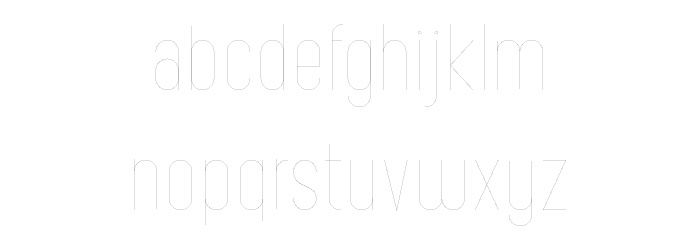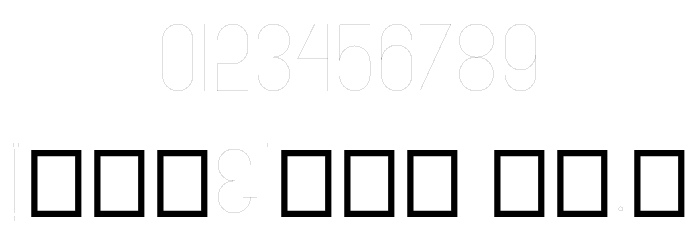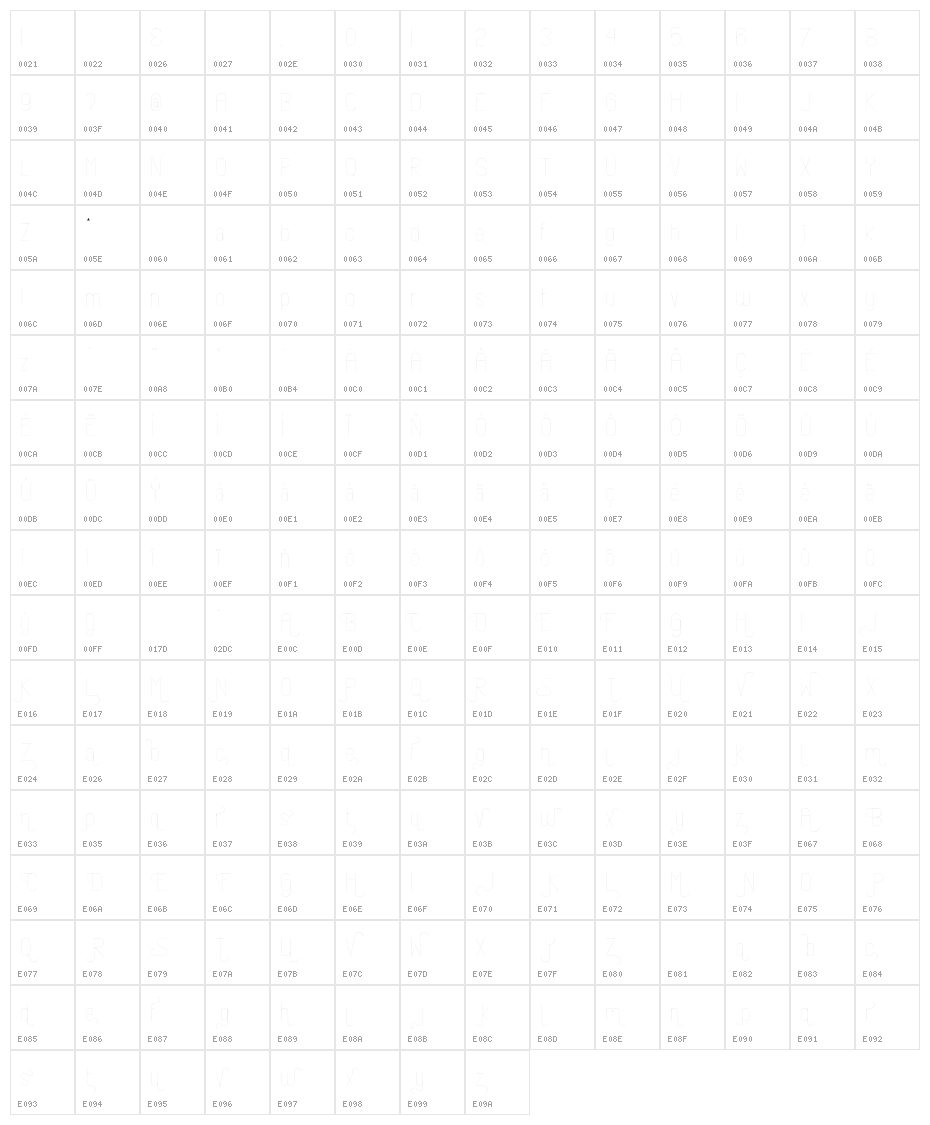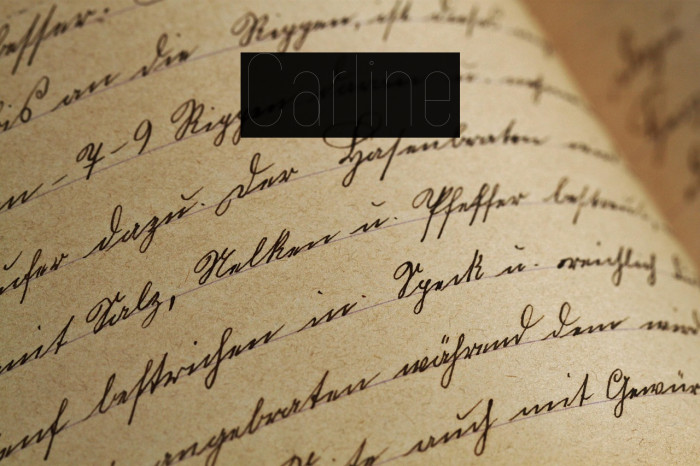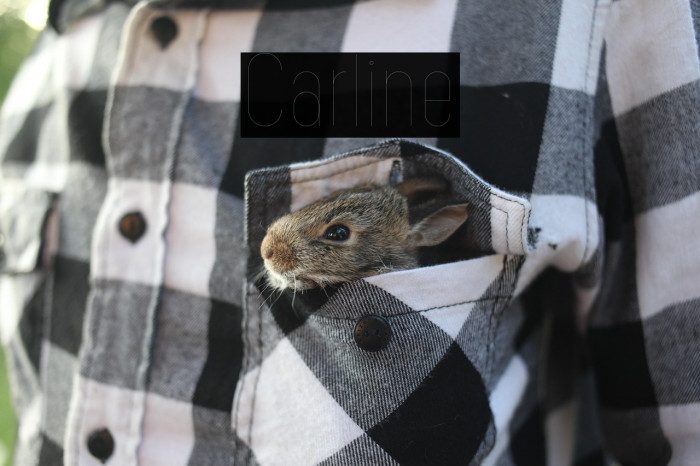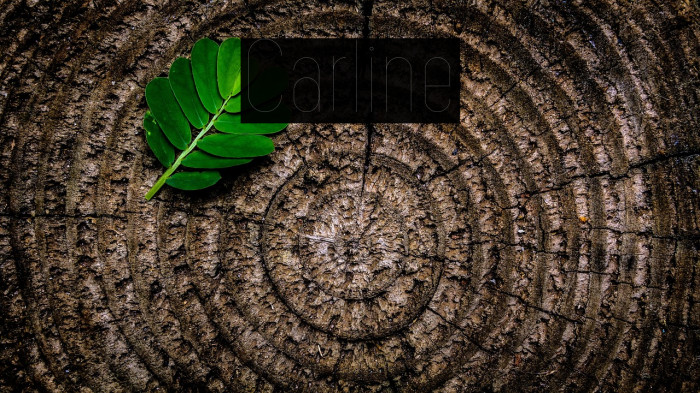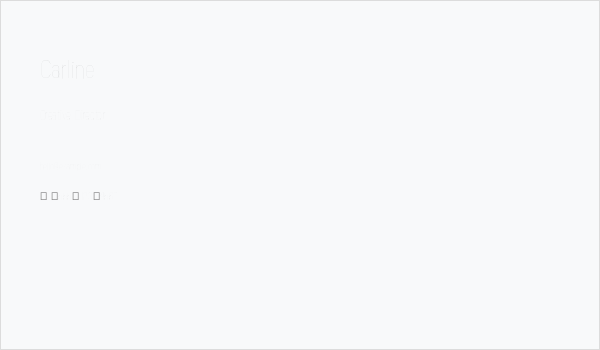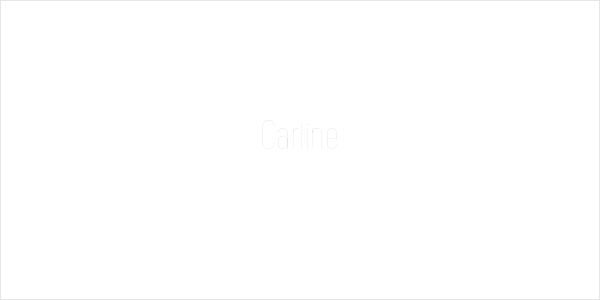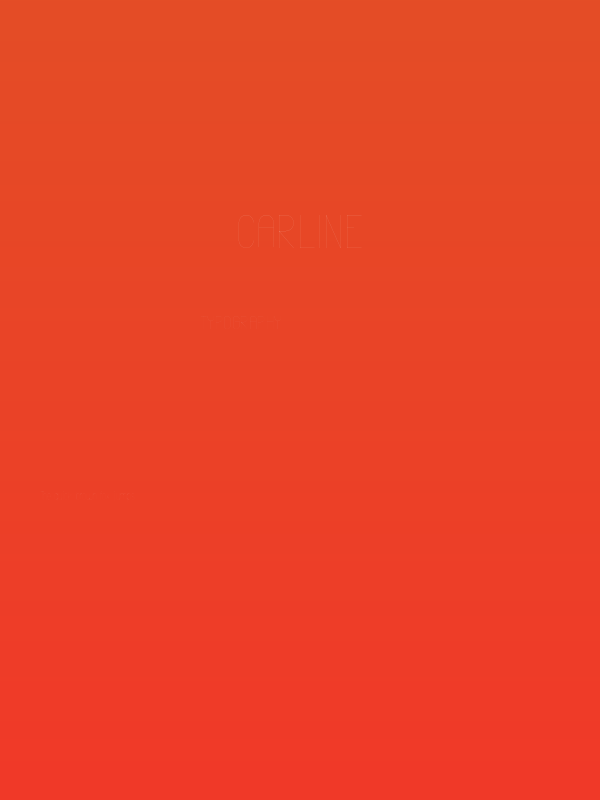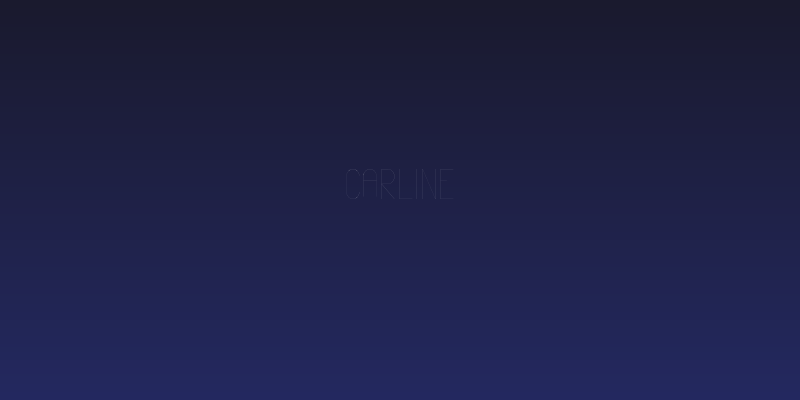
Carline Font
This font exhibits a clean and modern aesthetic with a geometric structure. The uppercase and lowercase letters are crafted with precision, featuring straight lines and sharp angles that give it a contemporary feel. The numerals are consistent with the letterforms, maintaining the same geometric style. Special characters are included, though some appear as placeholders, suggesting a minimalist approach. The overall design is sleek and versatile, suitable for a variety of applications where clarity and modernity are desired.
A clean, geometric font with a modern aesthetic.
- Proposed Projects: Ideal for branding, editorial design, digital interfaces, and signage where a modern and clean look is essential.